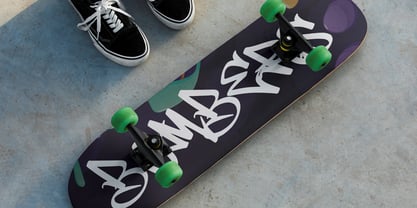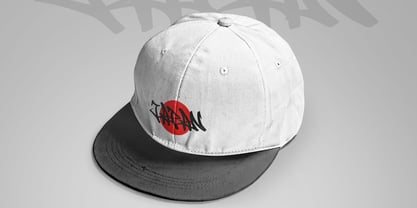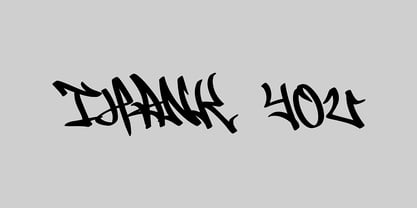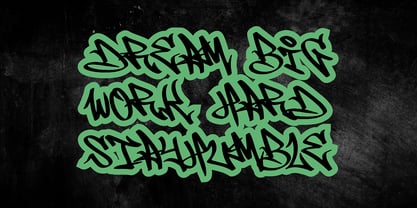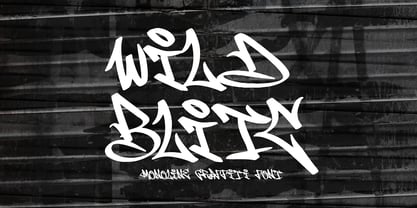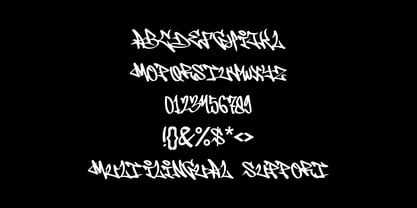
Wild Blitc
The Wild Blitc Font Family was designed by Sipanji and published by Sipanji21. Wild Blitc contains 1 styles. More about this family
Wild Blitz is a monoline graffiti font that brings raw street energy, expressive strokes, and authentic urban attitude straight into your design projects. Inspired by real handstyle tagging and the bold culture of street art, this font captures the spirit of graffiti with powerful movement, sharp edges, and dynamic flow. Every letter was carefully crafted to look like it was written with a marker on concrete walls or metal shutters, making it a perfect choice for designs that demand attention and originality.
Wild Blitz goes far beyond simple typography—it’s a visual expression of urban culture. Built with consistent monoline weight and balanced proportions, it reflects the natural rhythm of graffiti tags while still being highly legible. The font’s wild yet controlled style makes it a versatile option for branding, streetwear, skateboard culture, hip-hop artwork, album covers, energetic posters, and digital campaigns that need a loud and fearless voice.
The typeface includes uppercase, lowercase, numerals, punctuation, multilingual support, and creative ligatures that let designers experiment and create authentic street-inspired compositions. Its versatility allows it to adapt to any kind of visual setting—from gritty underground vibes to polished digital mockups.
• Genuine graffiti look with real street-style flow
• Monoline consistency for flexible pairing with modern visuals
• Strong, bold, and expressive character shapes
• Multilingual support for global reach
• Perfect for apparel, branding, digital ads, music visuals, and more
Wild Blitz isn’t just a font—it’s a piece of street culture you can bring into your design arsenal. With its raw authenticity and bold attitude, it ensures your designs stand out, leaving a mark that feels both rebellious and stylish.